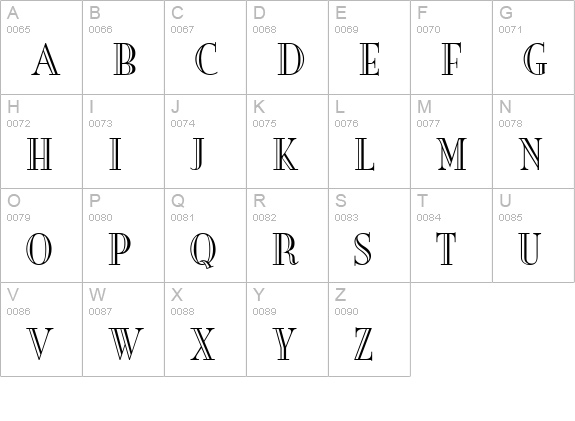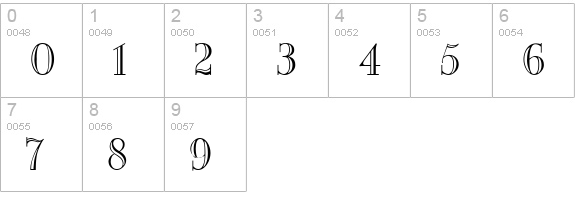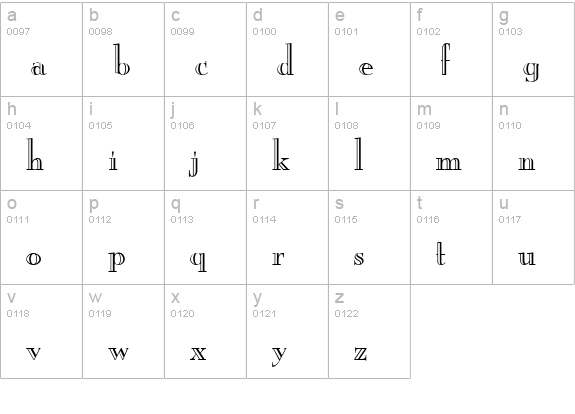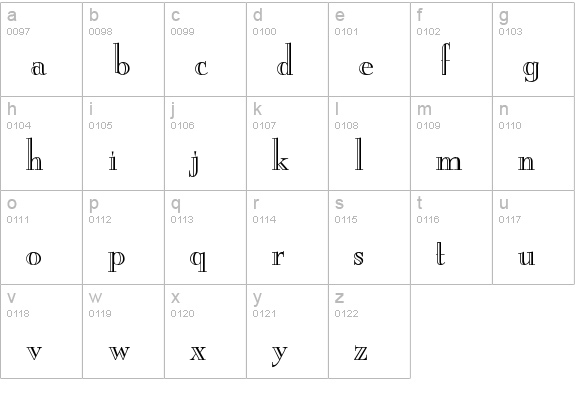
New Yorker Engraved Font Details
New Yorker Engraved font is a sophisticated and elegant typeface that exudes timeless charm and class. Its intricate details and fine lines give it a distinguished and refined appearance, making it perfect for adding a touch of sophistication to any design project. This font captures the essence of classic New York style, with a hint of old-world charm that is sure to impress. What sets New Yorker Engraved font apart is its versatility and adaptability to a wide range of design applications. Whether you are creating invitations, branding materials, or editorial layouts, this font will elevate your design to a new level of sophistication. The best part? New Yorker Engraved font is available for free download at FontsMarket.com. This means you can easily access and use this stunning typeface in your projects without any cost. So why wait? Add a touch of New York glamour to your designs with New Yorker Engraved font today!